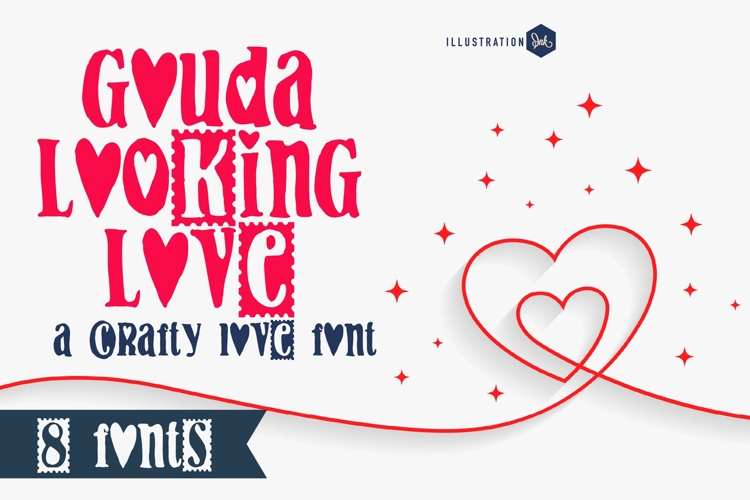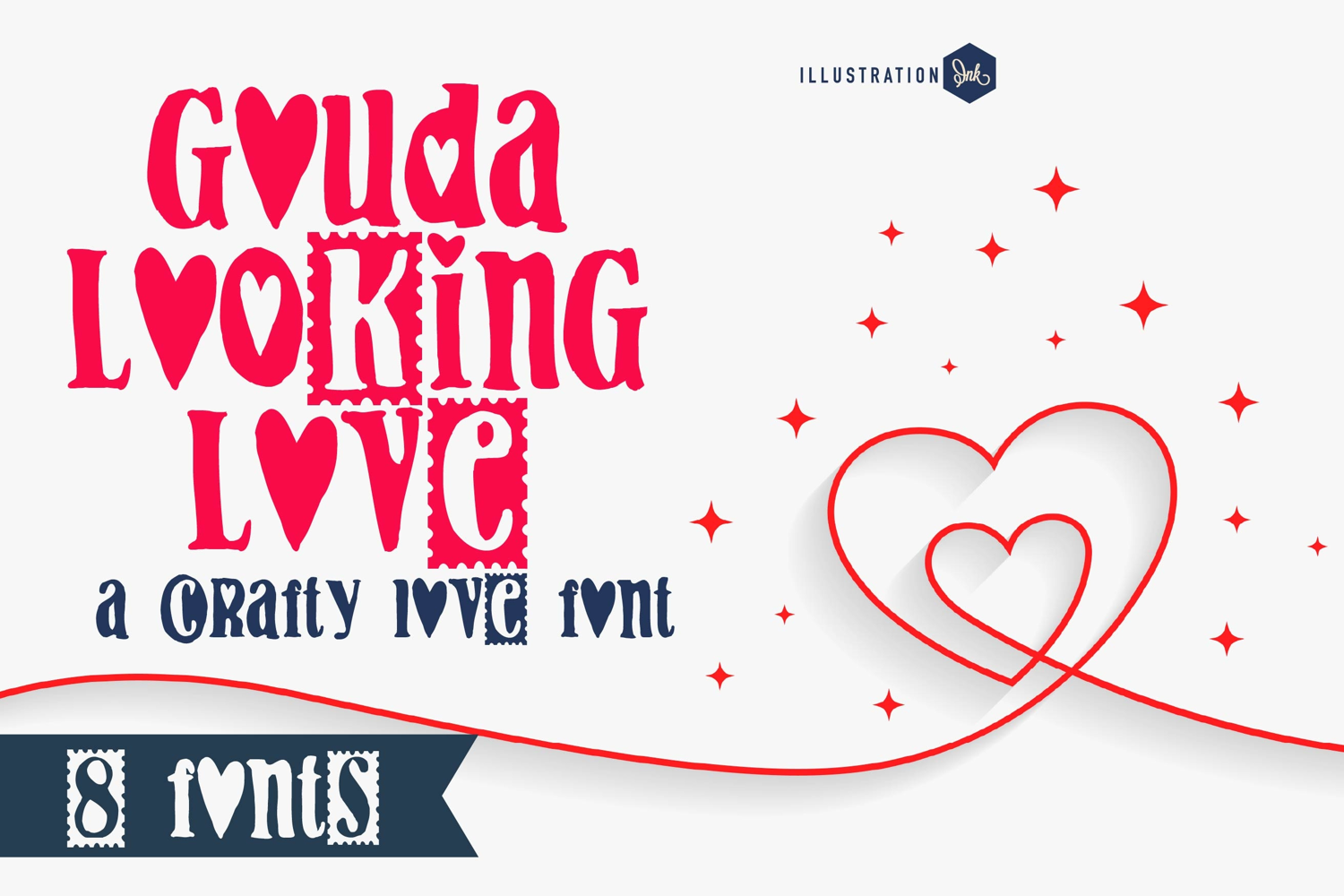
PN Gouda Looking Font Family
This hand-crafted font is a chunky font with a bit of texture and no descenders in the lowercase. 8 versions included with several sporting hearts and love imagery.